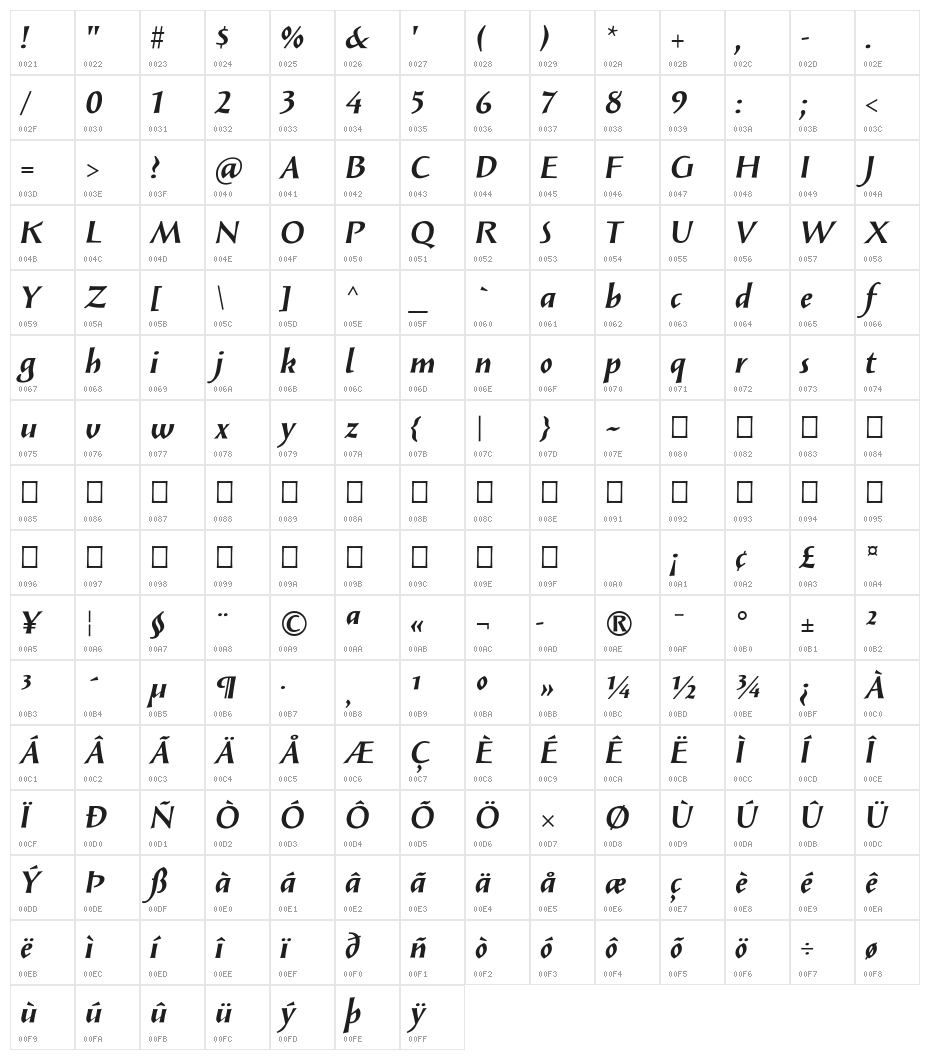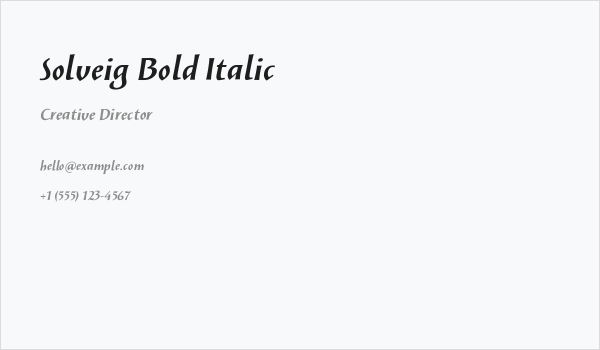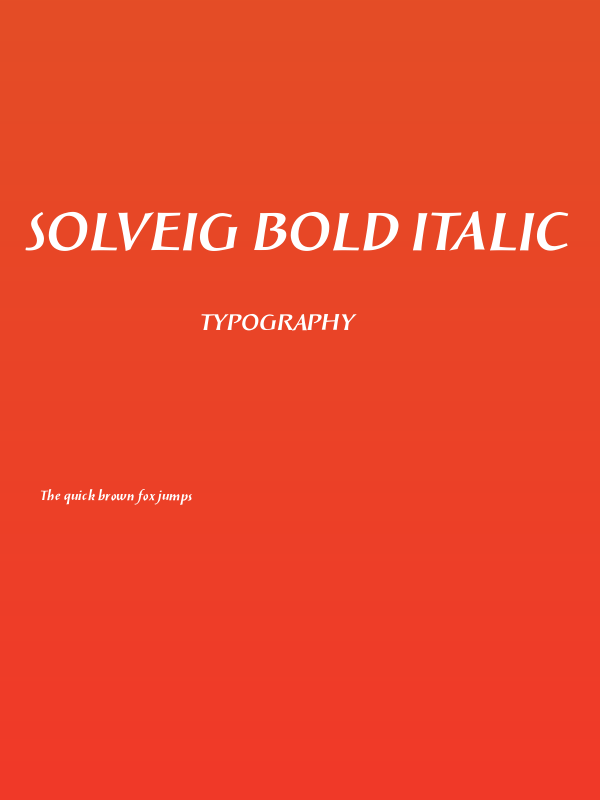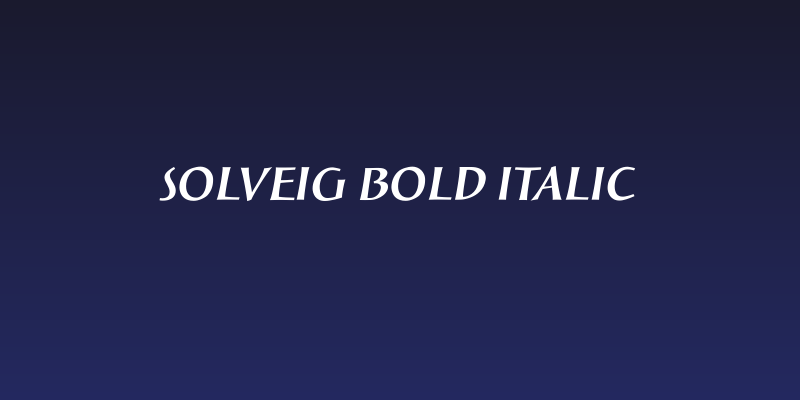
Solveig Bold Italic Font
Solveig Bold Italic Description
This font features a dynamic and elegant style with a pronounced italic slant, giving it a sense of movement and sophistication. The bold weight enhances its presence, making it suitable for impactful designs. The characters exhibit a high contrast between thick and thin strokes, adding to its dramatic flair. The serifs are sharp and angular, contributing to a modern yet classic aesthetic. The overall appearance is both stylish and assertive, making it ideal for projects that require a strong visual statement.
| Use Case | Headlines, Logos, Editorial design |
| Proposed Projects | This font is perfect for branding, editorial design, book covers, and high-end fashion magazines. Its bold and elegant style makes it suitable for luxury product packaging and sophisticated advertising campaigns. |